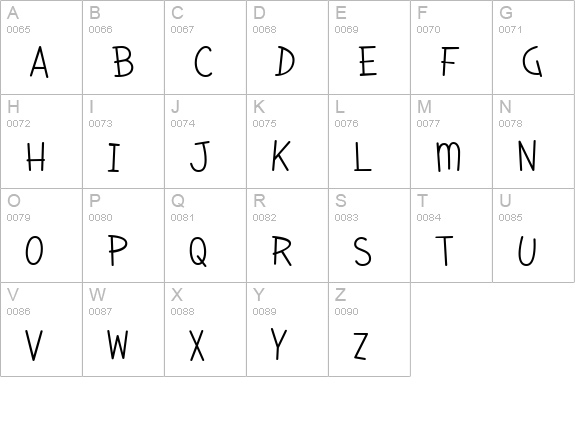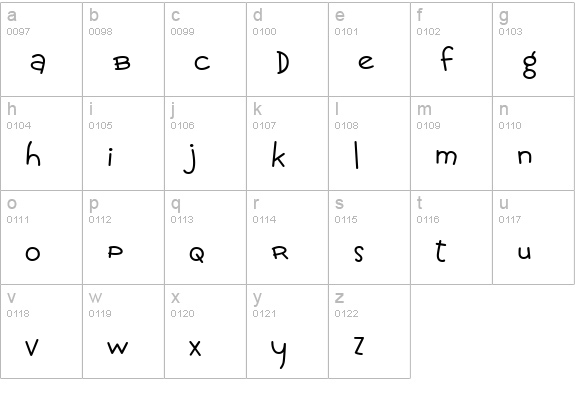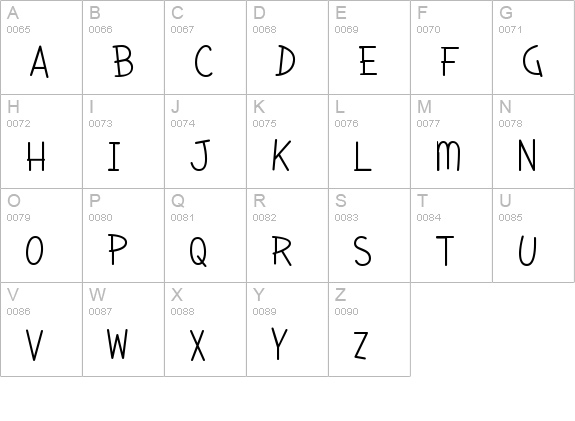
Crazy Girlz Brunette BTN Font Details
Crazy Girlz Brunette BTN font is a whimsical and playful typeface that exudes energy and creativity. With its unique and quirky design, this font is perfect for adding a fun and lively touch to your projects. The bold strokes and playful curves of Crazy Girlz Brunette BTN make it stand out and grab attention. The best part? Crazy Girlz Brunette BTN font is available for free download at FontsMarket.com. This means you can easily add this charming font to your collection without any cost. Whether you're working on a design project, creating social media graphics, or crafting invitations, Crazy Girlz Brunette BTN is sure to bring a dose of fun and personality to your work. Download it today and let your creativity shine with this delightful and free font!